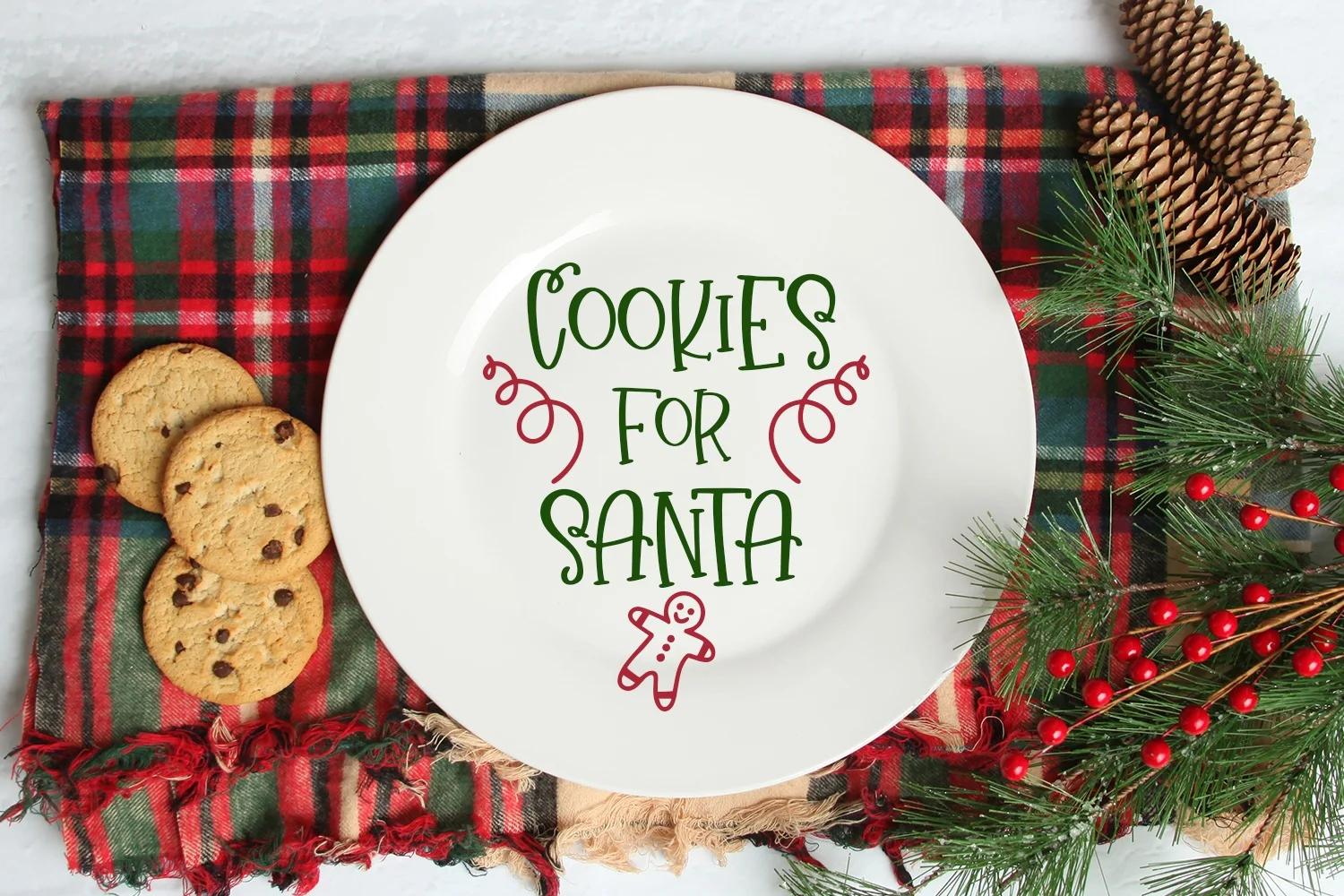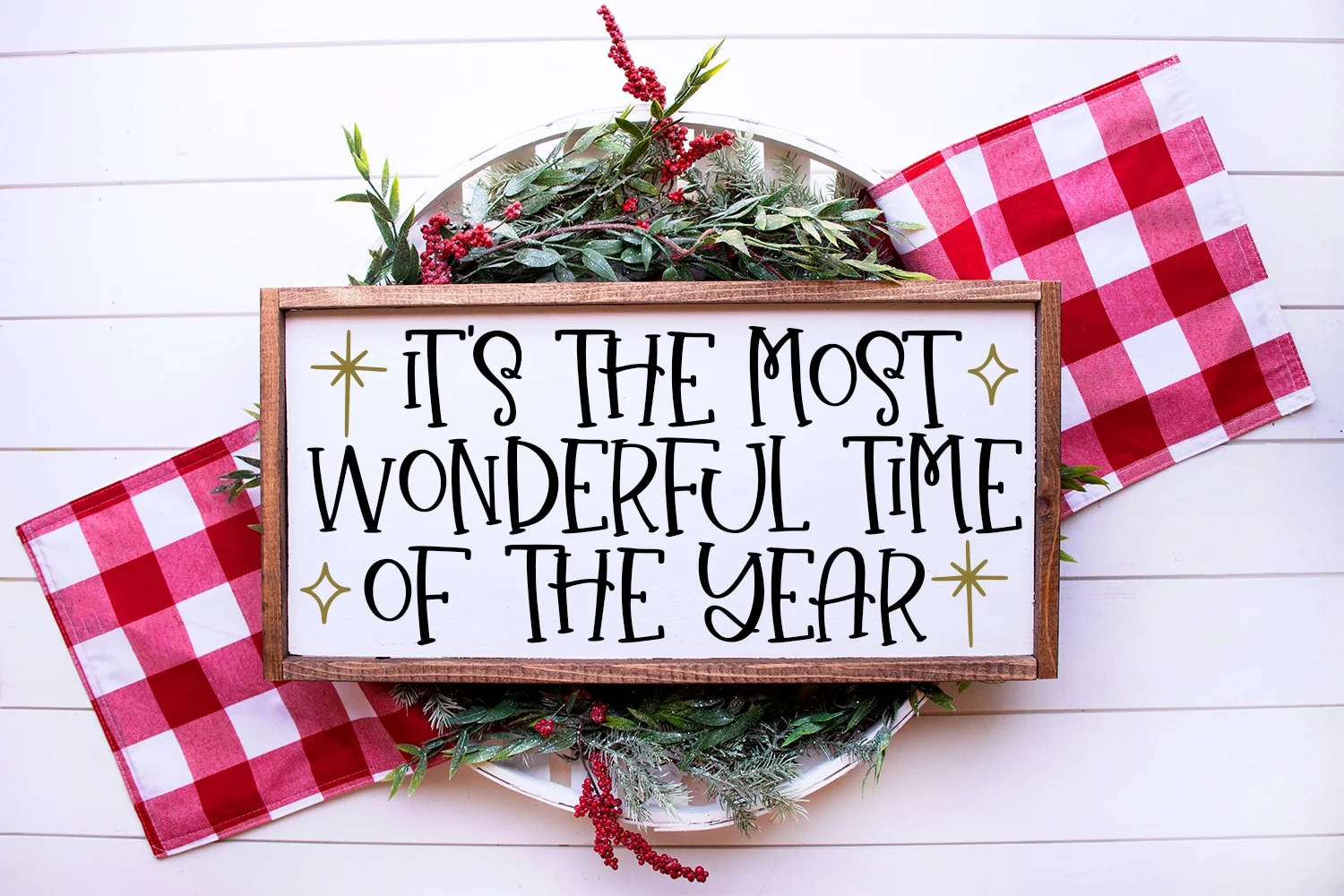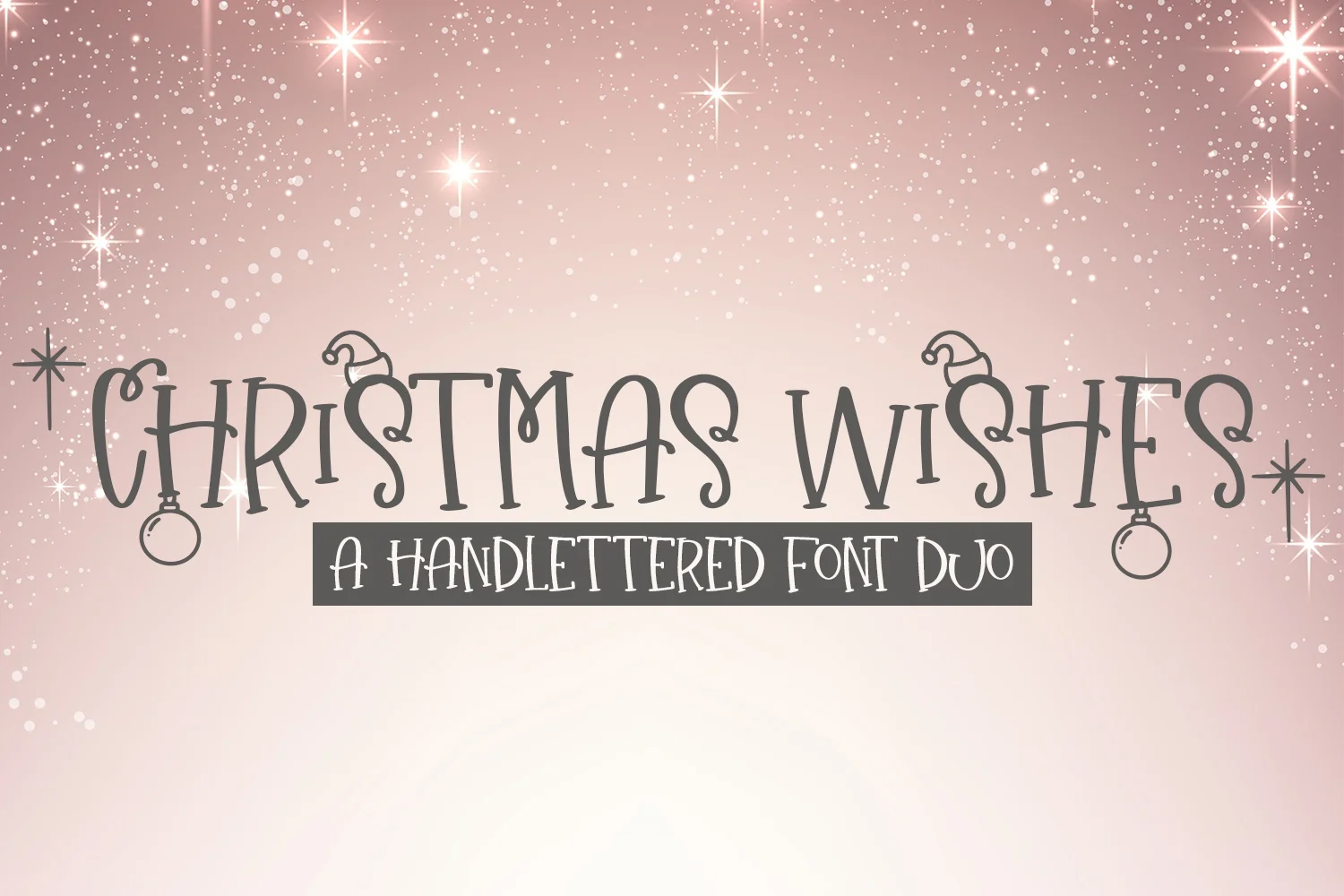
Christmas Wishes Font
A good typeface communicates tone before a single word is read. Christmas Wishes achieves this through versatility across print and screen contexts. The typeface brings a versatile sensibility to a broad range of creative disciplines, with controlled contrast that rewards close inspection that holds up whether the work is print-first or screen-first.
In practice, Christmas Wishes proves particularly effective for advertising campaigns, signage systems, environmental graphics, product labels, social media graphics. Designers reaching for it find that the type decisions feel resolved rather than laboured — a useful quality when client timelines are tight.
The range of applications extends to logo design, web design, poster creation, annual reports. That breadth is deliberate: the proportions and spacing were stress-tested across a wide range of mock briefs before the typeface was finalised.
Spacing and kerning pairs have been individually reviewed for the most common letter combinations in English and major European languages. The result is even type colour across continuous text, with no awkward gaps or collisions between adjacent characters.
In-house creative teams at consumer brands find Christmas Wishes a reliable choice for projects that demand both personality and restraint. The design avoids the self-conscious quirkiness that dates quickly, settling instead for considered distinctiveness that holds up over time.